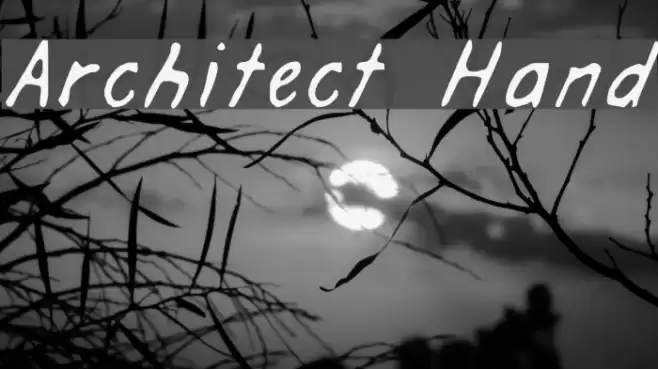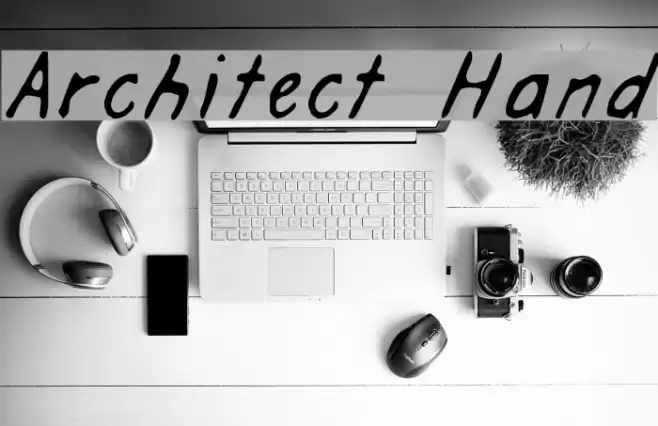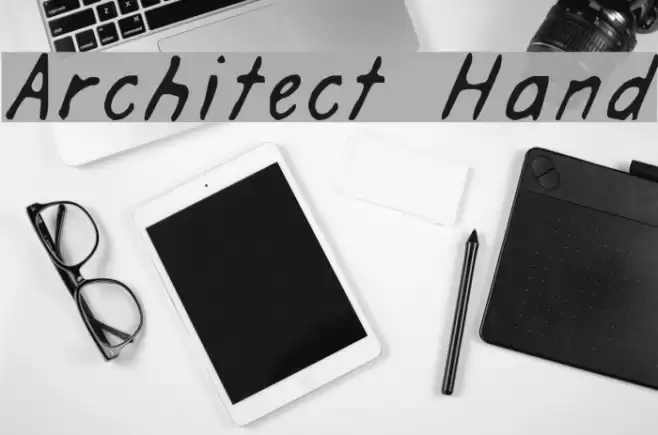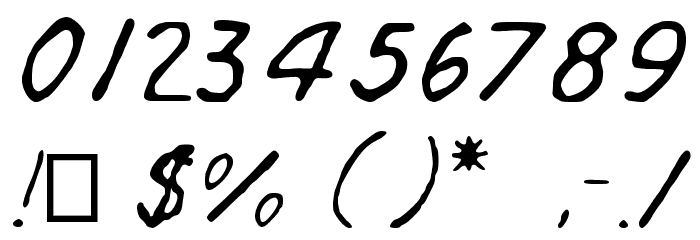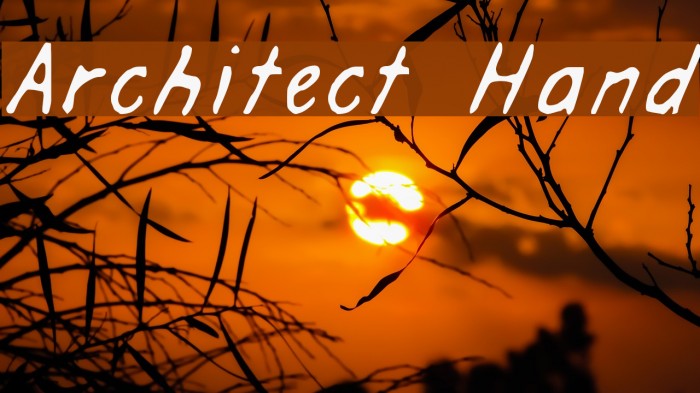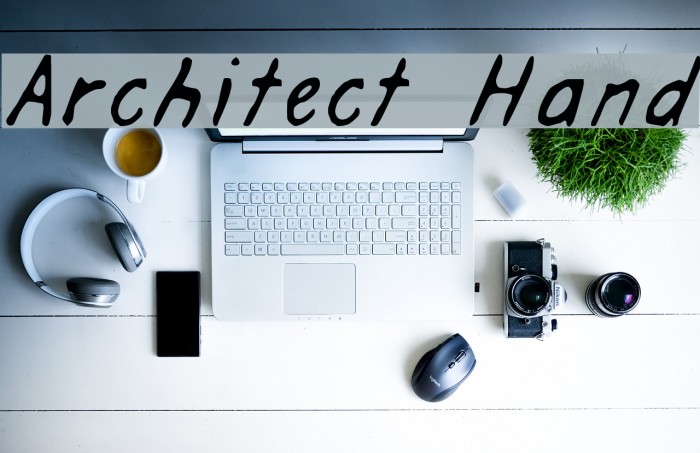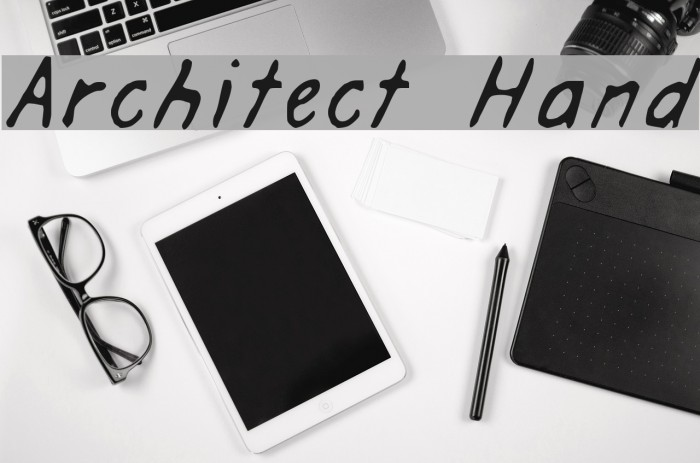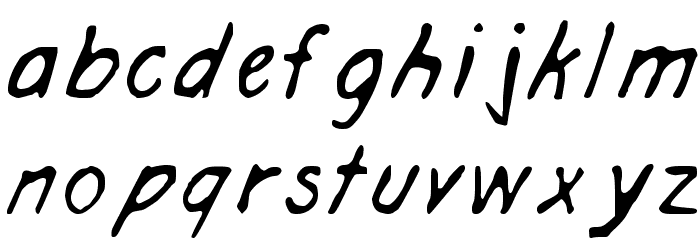
Architect Hand Font
Architect Hand Description
This font exudes a casual, handwritten style that mimics the natural flow of a person's handwriting. Each character is crafted with a slight slant, giving it an informal and approachable feel. The strokes are uneven, adding to the authenticity of a hand-drawn look. The uppercase letters maintain a consistent height, while the lowercase letters vary slightly, enhancing the organic appearance. Numbers and special characters are designed with the same fluidity, ensuring a cohesive look across all text. This font is perfect for projects that require a personal touch, such as invitations, greeting cards, or any design that aims to convey warmth and friendliness.
A casual, handwritten-style font with a natural, flowing appearance from Handwritten fonts.
- Proposed Projects: Ideal for invitations, greeting cards, personal notes, and any design needing a warm, personal touch.
- Overall Style: Casual, Handwritten
- Use Case: Logos, Invitations, Greeting Cards